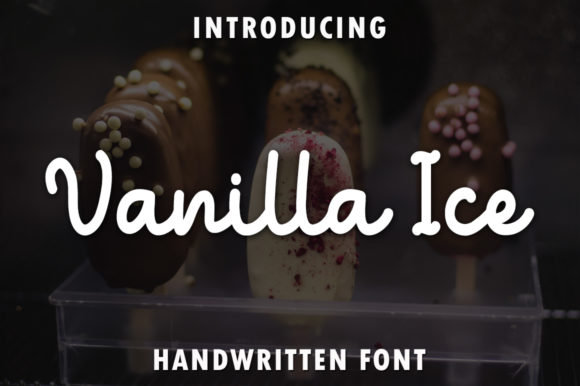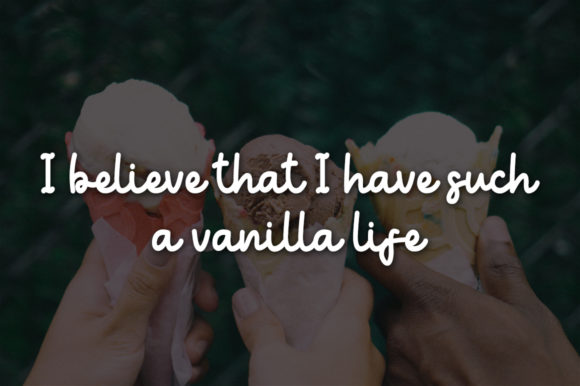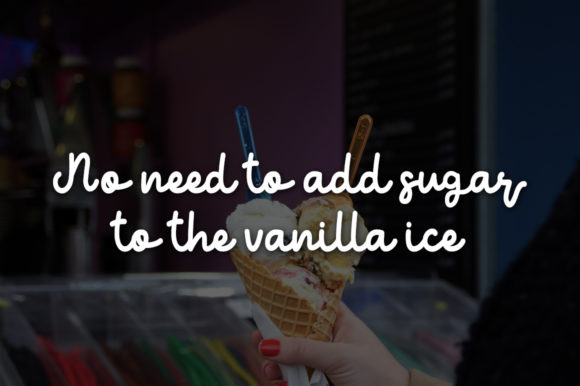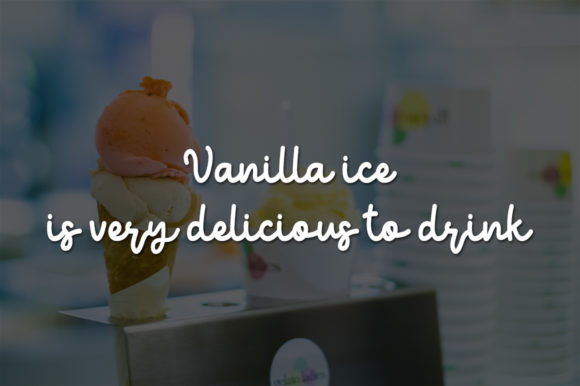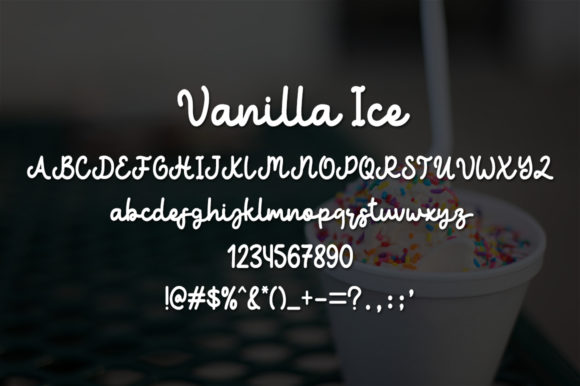
Vanilla Ice Font
About Vanilla Ice Font
Vanilla Ice is a sweet and cursive handwritten font. This gentle font will look gorgeous on a variety of design ideas. It will add a joyful and romantic touch to each of your projects!